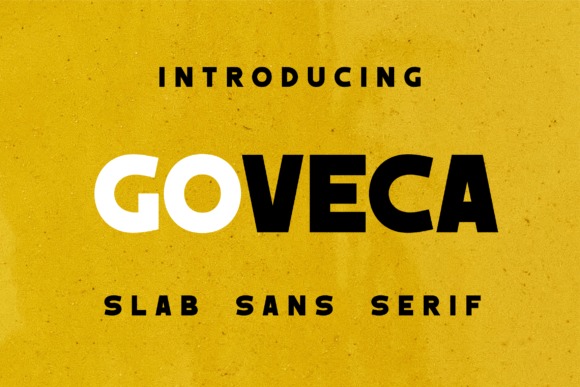
Introducing Goveca Font, the ultimate choice for small web text! This sans serif gem, created by the talented Wontenart, is here to revolutionize your font collection.
Goveca Font is bold, assertive, and captivating. It will effortlessly enhance the impact of any design or project you embark on. Say goodbye to dull and uninspiring text - Goveca Font will inject life and vitality into your creations.
With its sleek and modern aesthetic, Goveca Font is the perfect companion for websites, blogs, and digital marketing materials. Its clean lines and crisp edges ensure maximum readability, even at smaller sizes. Your content will effortlessly stand out and grab the attention it deserves.
But Goveca Font is more than just a visually pleasing option. It is a powerhouse of emotion and personality. Each character exudes confidence and strength, allowing you to convey your message with impact. Whether you're aiming for elegance, professionalism, or a touch of edginess, Goveca Font has got you covered.